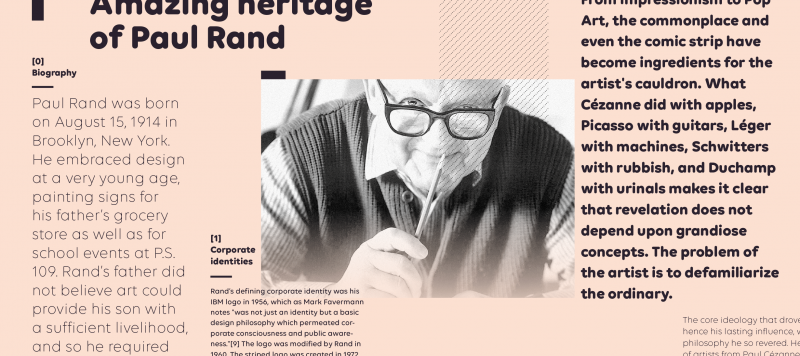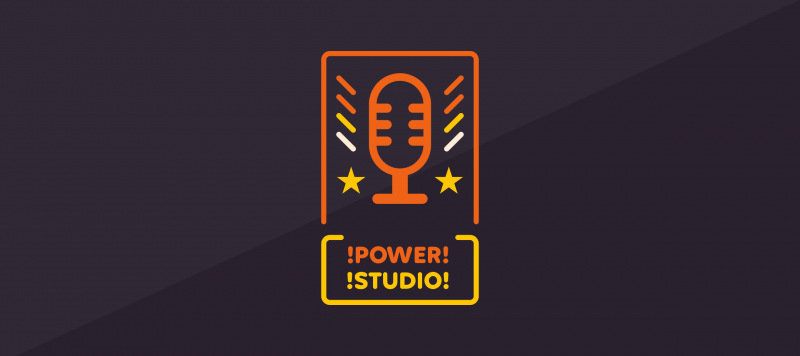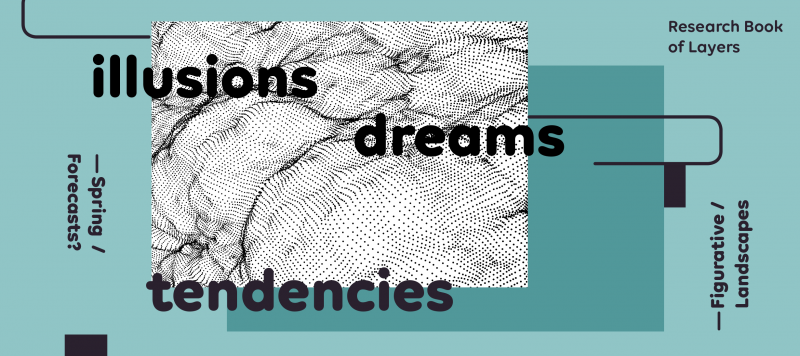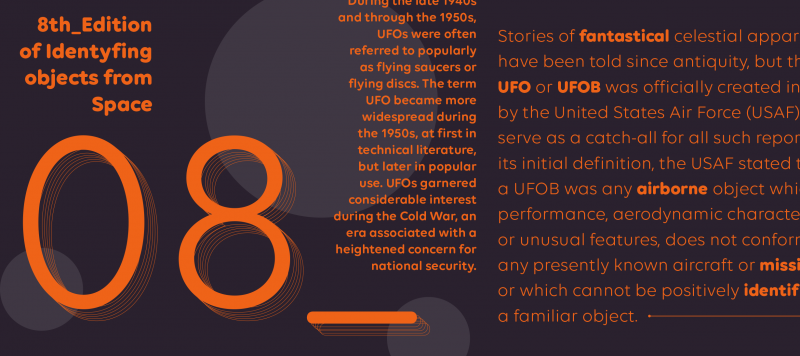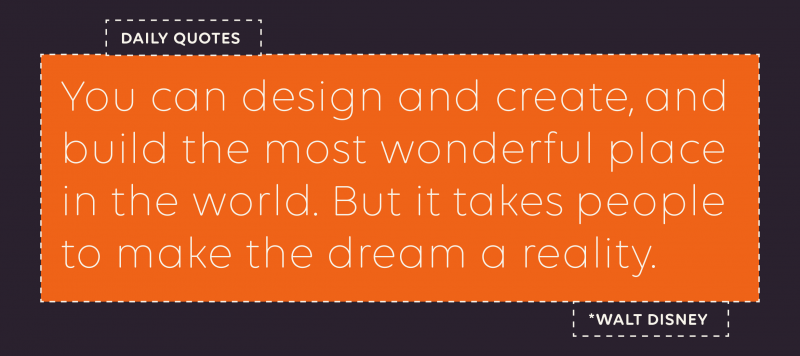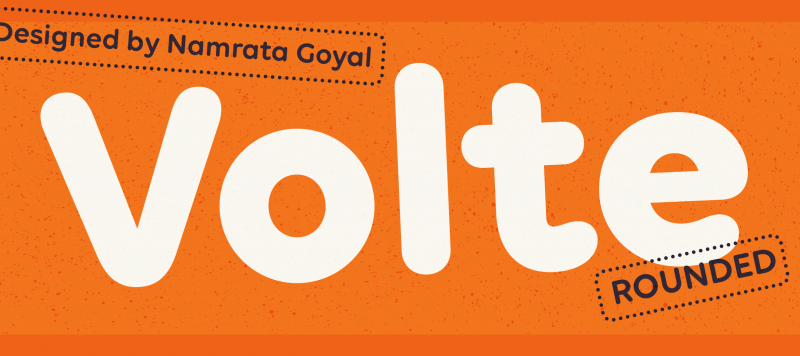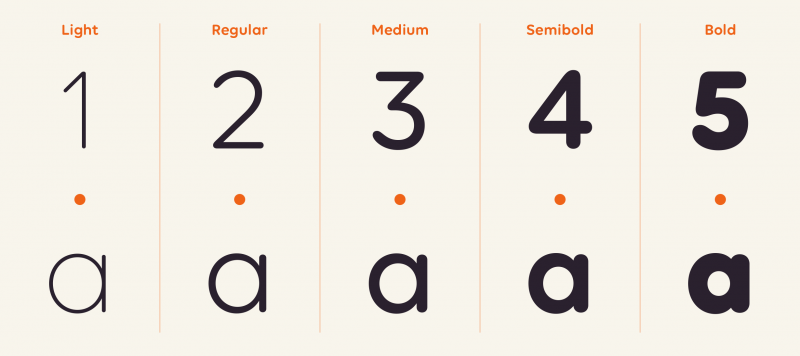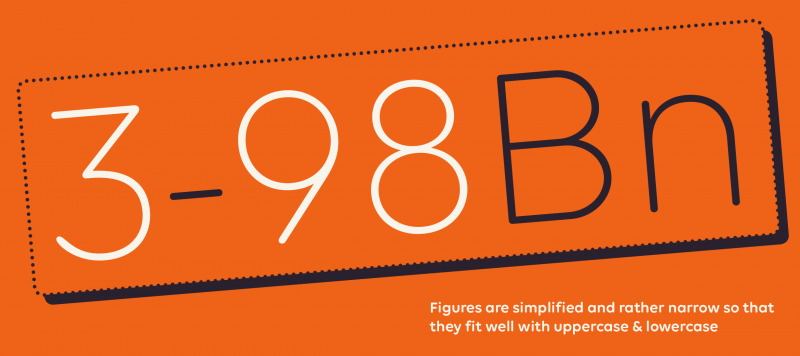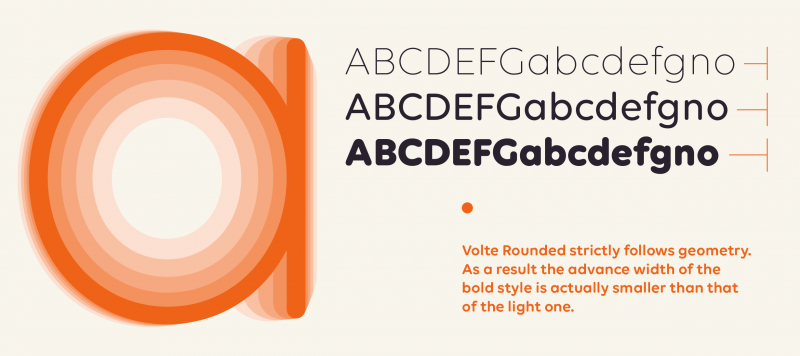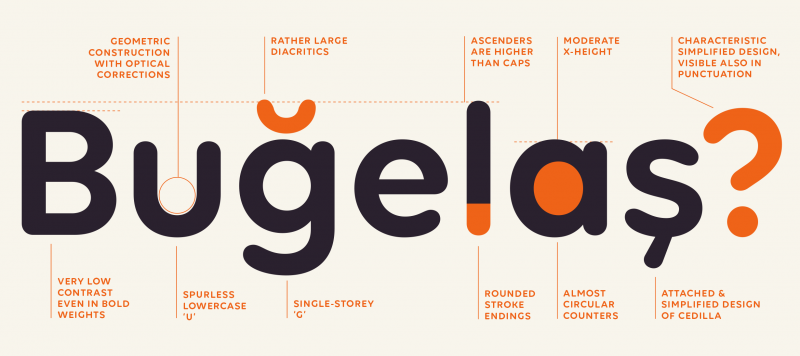
As a follow-up to our popular Volte Devanagari and Volte Latin families, Volte Rounded adds five additional fonts to this series. Volte Rounded is a geometric sans serif typeface with rounded stroke endings. These aren’t softened-up corners, but rather full-on sausage-style terminals. Aside from geometry, reduction is the biggest principle behind Volte Rounded’s design. Volte Rounded’s letterforms are low-contrast, even in the bolder weights. The high degree of design simplification is even visible in the typeface’s diacritics and punctuation marks. Because Volte Rounded’ proportions are so geometric, the outer shapes of letters like ‘C’, ‘D’, ‘O’, ‘c’, ‘o’, etc. are very similar. The exterior curves of the ‘O’ and ‘o’ are close to being perfect circles, too, as are many of the typeface’s counterforms. In each font, the letter-spacing settings reflect the counters’ sizes; this means that the advance widths of the Bold’s characters are actually narrower than those of the Light. Volte Rounded’s numerals are narrow so that they easily fit into strings of either uppercase or lowercase text.